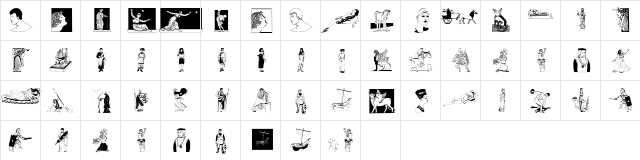
ClassicBats Regular
Design Context for ClassicBats Typeface
ClassicBats has the warm character of retro typography — evoking diners, record sleeves, and the golden age of print advertising.
Font Pairing: Combine ClassicBats with a simple slab or neutral sans — period-accurate companions reinforce the vintage feel without competing for attention.
Pro Tip: Lean into ClassicBats's period character by pairing it with aged paper textures, muted colour palettes, and vintage illustration styles.